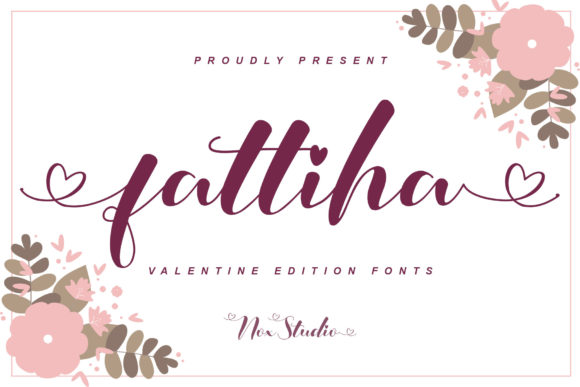
Introducing Fattiha Font - a script font that emulates the charm of handwritten calligraphy, inviting a touch of romance and sweetness into your designs. Created by Nox Studio, Fattiha is more than just a font; it's an artistic expression that brings life to your digital creations. With its characters dancing along the baseline, Fattiha adds an elegant flair, making it the perfect choice for web design.
Imagine captivating your audience with a website that exudes sophistication and grace. Fattiha Font will transform your online presence, turning it into a visual masterpiece that speaks volumes about your brand's personality. Its smooth curves and flowing lines create a sense of harmony and cohesion, ensuring that your website visitors enjoy a seamless and visually pleasing experience.
Fattiha Font isn't just limited to web design; its versatility extends to a wide range of creative projects. Whether you're crafting social media graphics, designing logos, or creating marketing materials, Fattiha will add a touch of elegance and charm to your work. Its timeless beauty transcends trends, making it a font that will remain relevant and captivating for years to come.